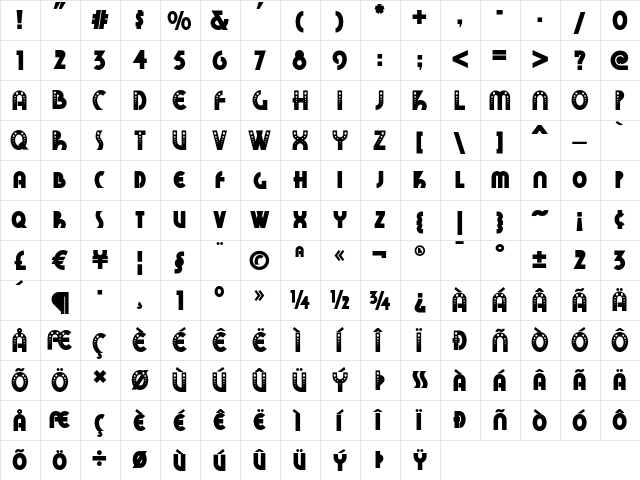
Kirschwasser NF Regular
| Foundry | Nick Curtis |
Design Context for Kirschwasser NF Typeface
Kirschwasser NF is a composed and adaptable typeface that performs quietly and consistently across a wide range of design contexts.
Pro Tip: Use Kirschwasser NF in both headline and body roles to test its range before committing to a single application.